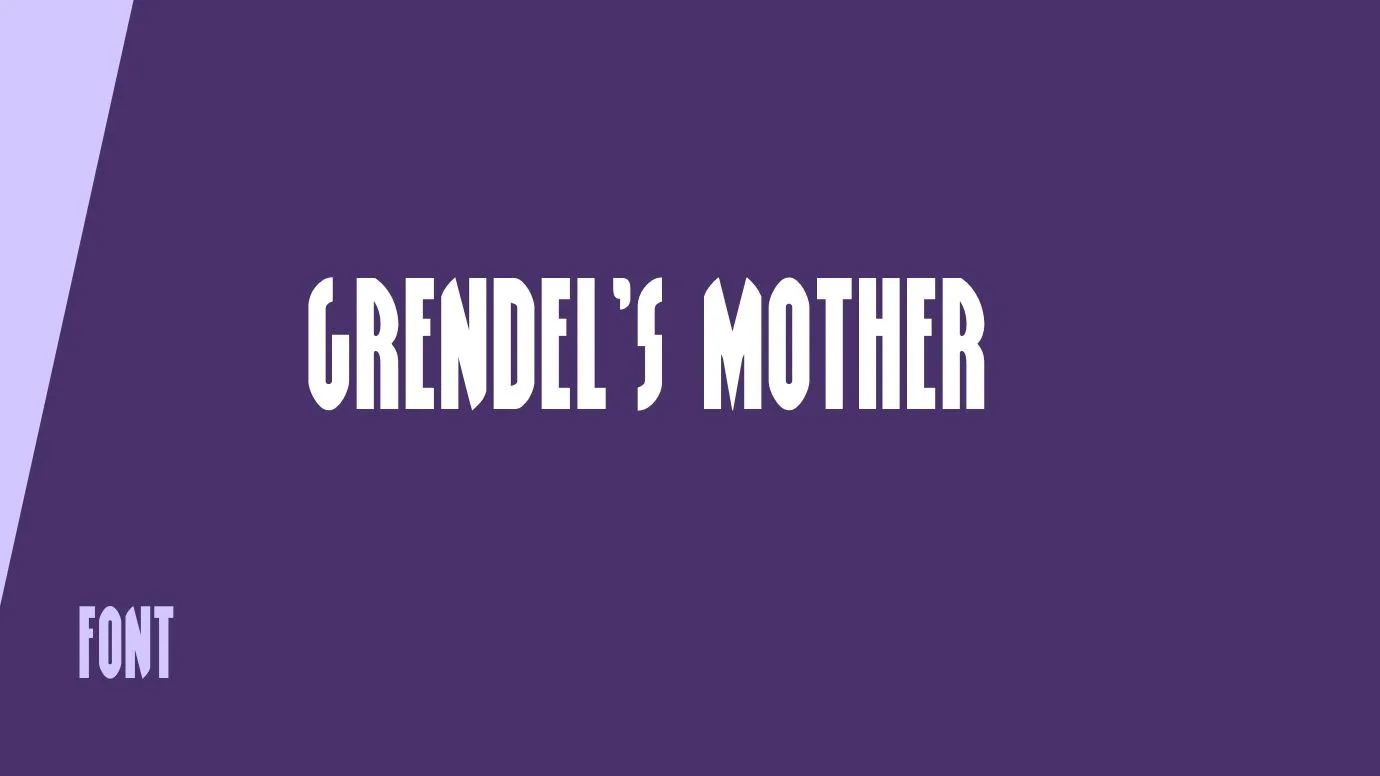
Judas Caps Font is designed to be used at small sizes and features tight spacing and high contrast strokes. This typeface design falls into the category of gothic and it was created in 2006 by Lorvad.
Creator of Judas Caps Font
This sans-serif typeface was designed by a very famous designer named Lorvad. This is a very well-known designer that is very professional in the field of creating fonts.
View of Judas Caps Font
| Name | Judas Caps Font |
| Style | Gothic |
| Designer | Lorvad |
Is Judas Caps a good font for a website?
Judas Caps is not a good font for a website as it is not easily readable. The font is designed to be used at large sizes and features tight spacing and high contrast strokes.
Is Judas Caps a modern font?
Yes, This font is considered to be a modern font. It was created in 2006 by lorvad and has been used in a variety of publications.
Can I use Judas Caps in a logo?
Yes, you can also use this in a logo. The reason for this is that it is often used in a way that makes it difficult to read, such as in all caps or in a very small size.